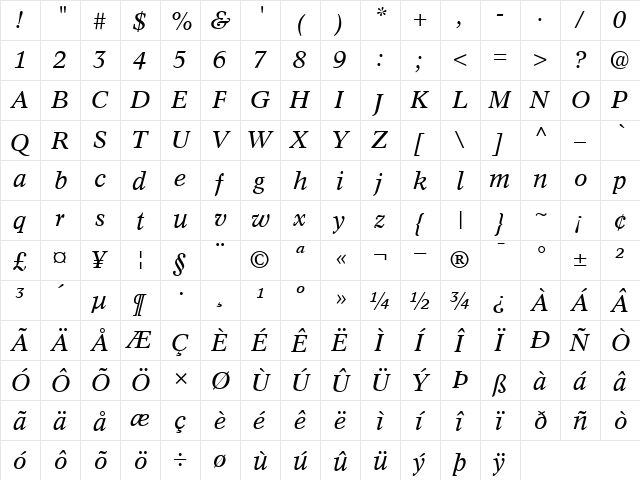
Concorde Italic
Design Context for Concorde Typeface
Concorde offers clean, dependable letterforms without strong stylistic allegiance, making it a practical choice for designers who need flexibility. The slanted form adds forward momentum and visual energy.
Pro Tip: Try Concorde for annotation and caption copy alongside an upright companion — the contrast in angle creates a dynamic but ordered typographic system.